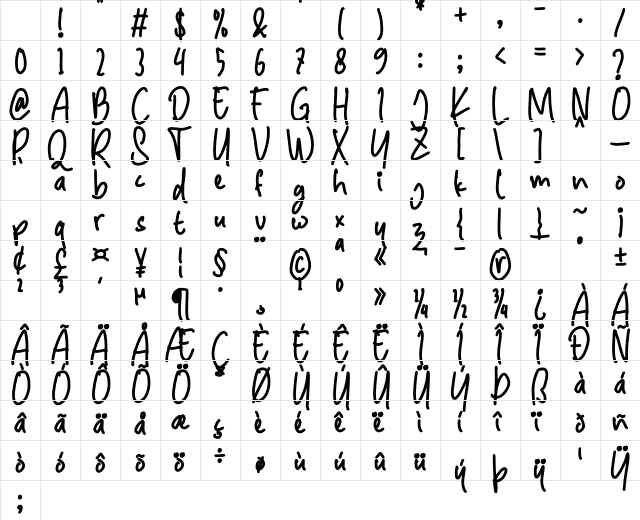
Complete toddler Regular glyph index. Displaying only characters natively supported by toddler Regular font.
toddler is a composed and adaptable typeface that performs quietly and consistently across a wide range of design contexts.